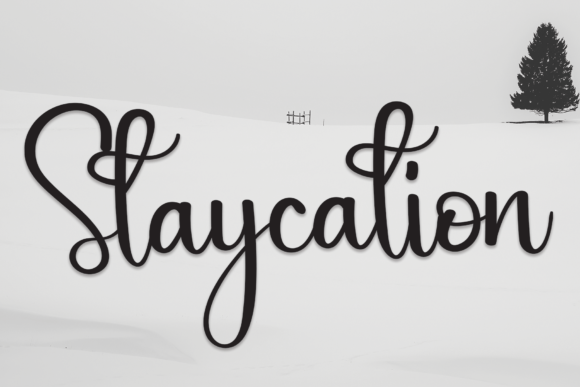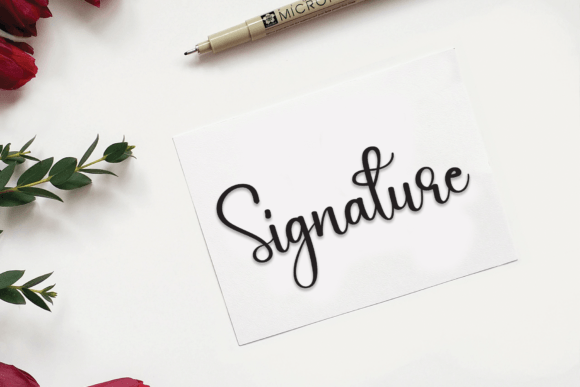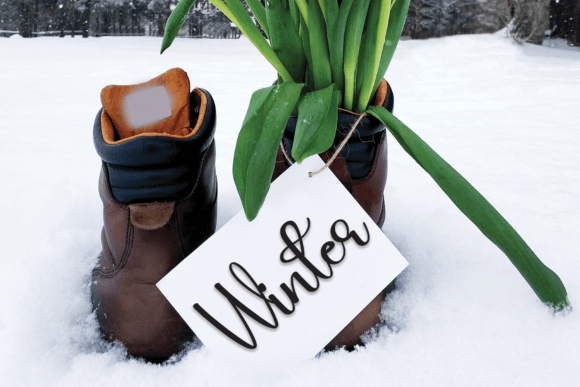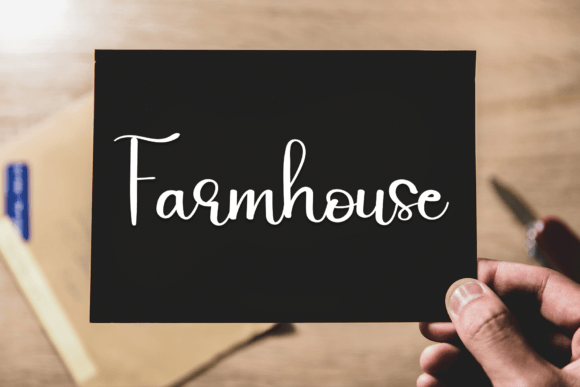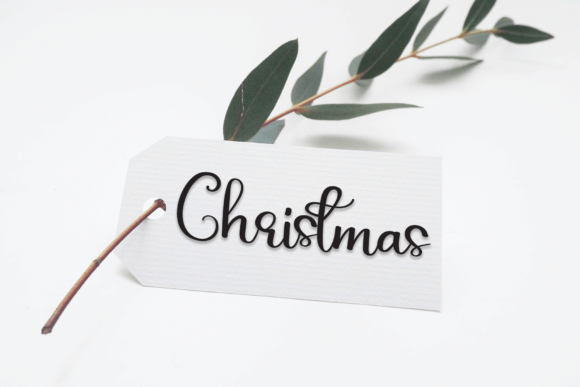
Staycation Font
About Staycation Font Download
The Staycation Font Download is a fun and friendly handwritten typeface created to bring warmth, charm, and personality to your designs. With its casual handwritten flow, this font adds a welcoming touch to everything from DIY crafts to professional graphics. Its approachable style makes it versatile for personal use, branding, and creative content across both print and digital platforms.
A Handwritten Font with Personality
Staycation feels relaxed, modern, and authentic. Each letter has a casual flow that resembles real handwriting while maintaining balance and readability. Unlike overly decorative fonts that can become hard to read, the Staycation Font Download offers clarity along with charm. This makes it an excellent option for both playful and professional projects.
Perfect for Crafts and DIY Projects
Crafters love fonts that look handmade while still feeling polished, and Staycation is exactly that. Whether you are designing greeting cards, scrapbook pages, embroidery patterns, or wall art, this typeface adds personality to your creations. The Staycation Font Download gives every DIY project an artistic flair that makes it stand out.
Great for Greeting Cards and Invitations
Greeting cards require fonts that connect emotionally with the recipient. Staycation delivers a heartfelt handwritten look, perfect for birthday cards, thank you notes, and party invitations. The Staycation Font Download helps turn a simple message into a meaningful keepsake, making it ideal for designers who want to add emotion to their text.
Ideal for Digital Design and Social Media
In the digital space, visuals are everything. From Instagram posts and Pinterest graphics to blog headers and YouTube thumbnails, Staycation brings a casual yet engaging vibe. The Staycation Font Download is easy to integrate with design platforms like Canva, Photoshop, and Illustrator, ensuring flexibility across all digital projects.
A Useful Option for Presentations
Presentations need fonts that hold attention while staying easy to read. Staycation accomplishes this balance perfectly. Teachers, students, and professionals can use the Staycation Font Download to create slideshows that look approachable and unique, making presentations more memorable for the audience.
Versatility for All Occasions
Staycation is not limited to one niche. It works well for crafts, digital design, social media, branding, and print materials alike. Small businesses can use it for logos and packaging, while hobbyists can enjoy it for crafts and decorations. The Staycation Font Download adapts to multiple uses, making it a valuable addition to any font collection.
Why Designers Choose Staycation
Designers appreciate Staycation because it combines fun with readability. Many handwritten fonts lose clarity at smaller sizes, but Staycation maintains its legibility while still looking creative. The Staycation Font Download is the kind of typeface that allows designers to create engaging projects without compromising on style or usability.
Add a Personal Touch to Your Designs